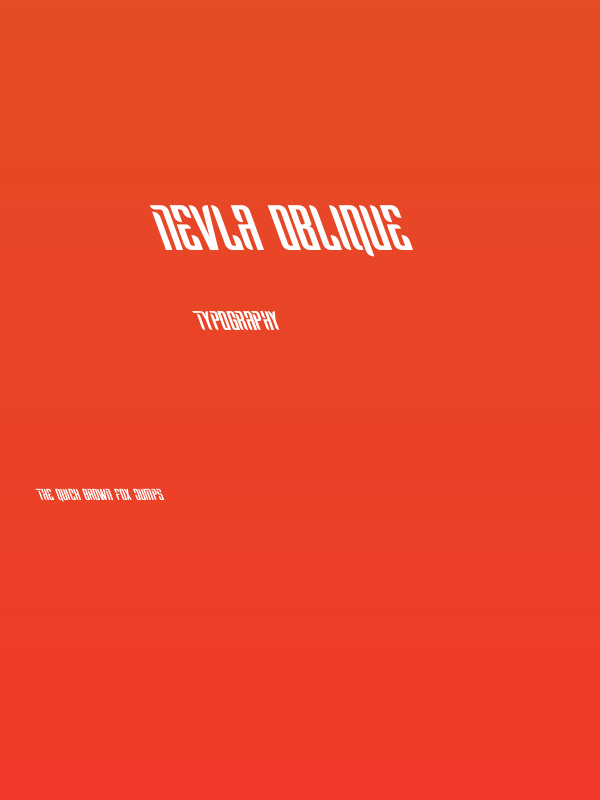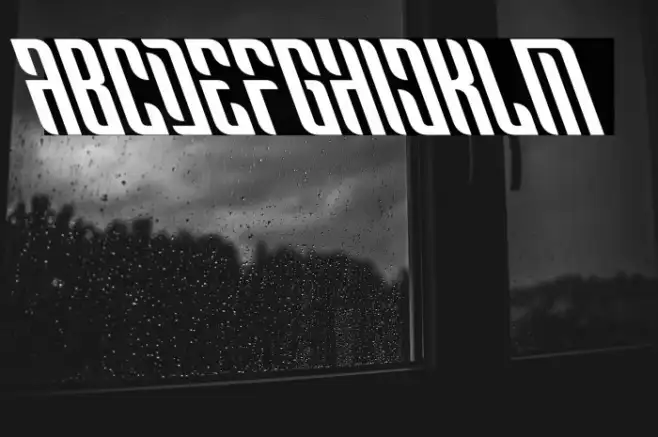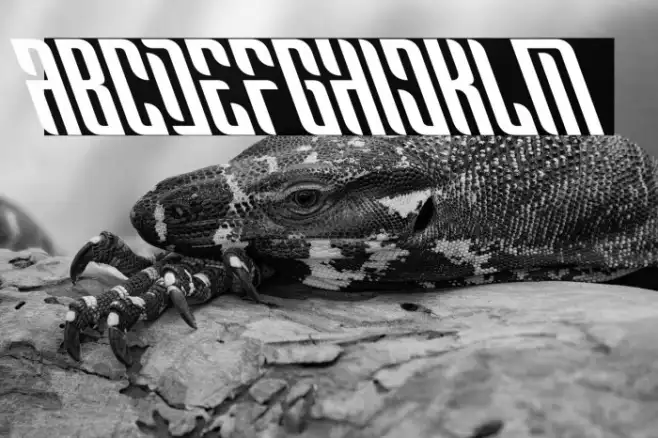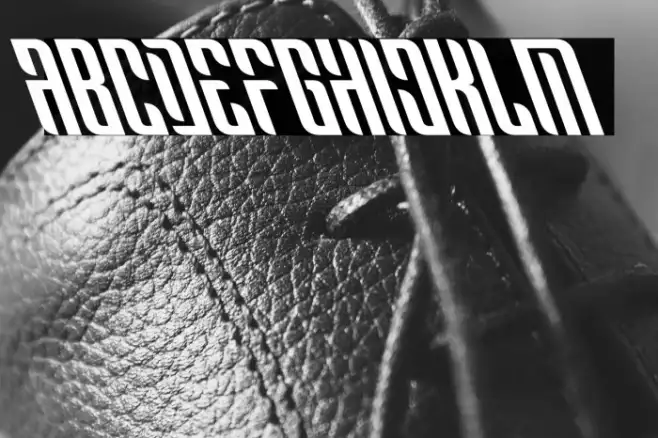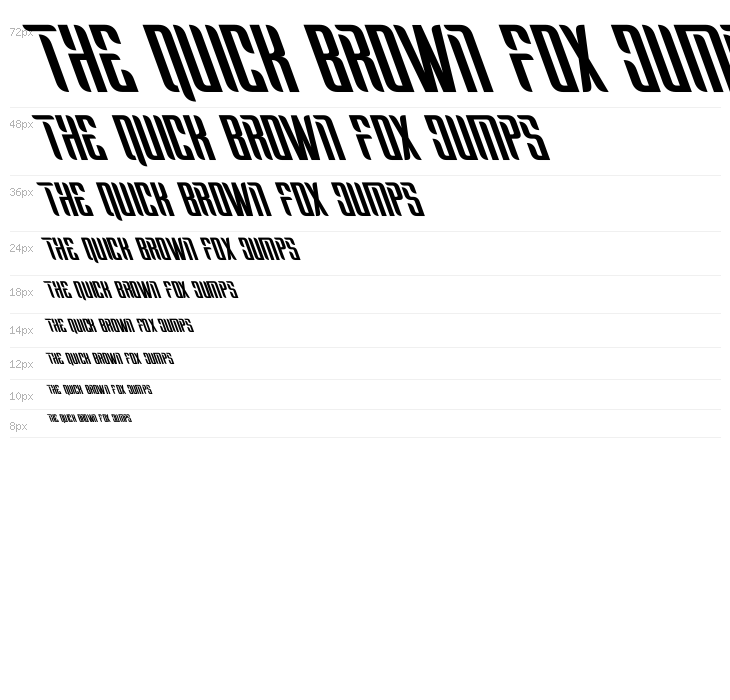
Nevla Oblique Font
Nevla Oblique Description
This font features a bold and dynamic oblique style, characterized by its strong, angular lines and a forward-leaning posture that conveys a sense of motion and urgency. The characters are tightly spaced, enhancing its compact and impactful appearance. The uppercase letters are particularly striking, with a consistent slant that adds to the overall cohesiveness of the design. The numerals and special characters maintain the same slanted style, ensuring uniformity across all glyphs. This font's high contrast between thick and thin strokes adds to its dramatic and modern aesthetic, making it suitable for attention-grabbing designs.
| Proposed Projects | Ideal for sports branding, dynamic posters, modern advertisements, and any project requiring a bold, energetic typeface. |